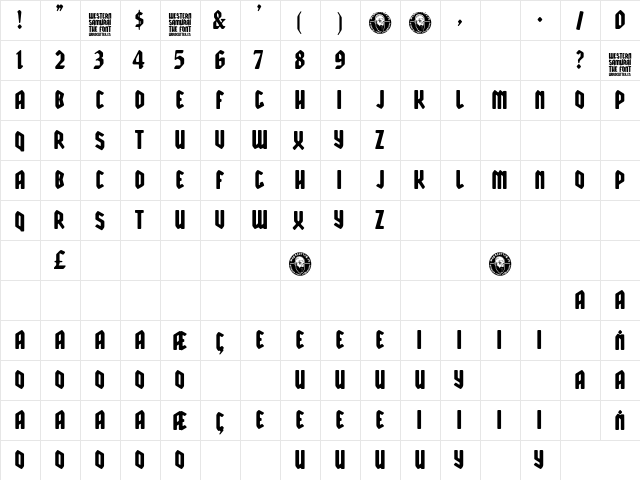
Western Samurai Regular
Design Context for Western Samurai Typeface
Western Samurai taps into classic Western woodtype traditions — bold, characterful, and impossible to ignore.
Perfect for barbecue restaurants, country music branding, vintage poster design, and rustic packaging.
Font Pairing: Combine Western Samurai with a simple slab or neutral sans — period-accurate companions reinforce the vintage feel without competing for attention.
Pro Tip: Pair Western Samurai with aged textures or distressed backgrounds to amplify its vintage personality.